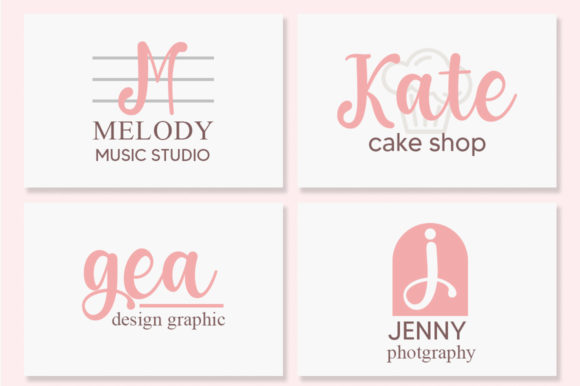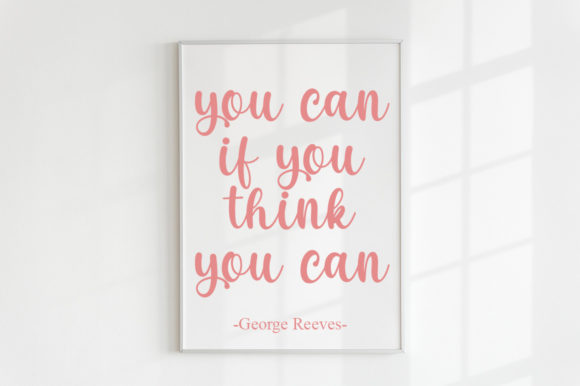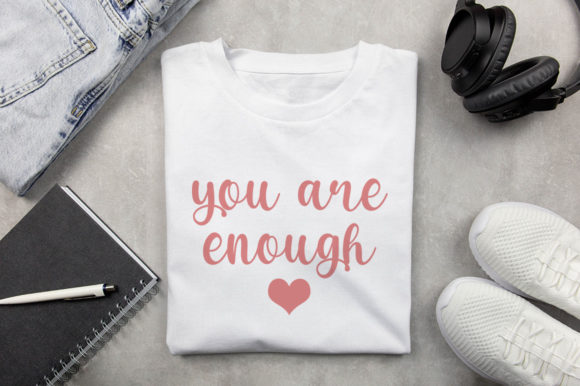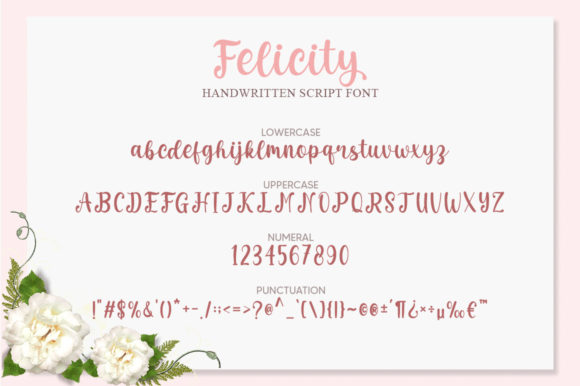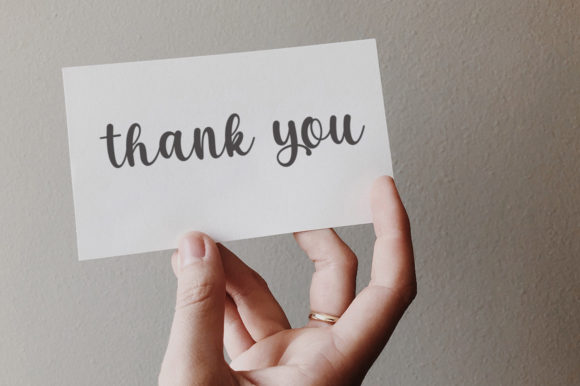
Introducing Felicity Font: Add a Touch of Magic to Your Designs
Are you looking for a font that can add a dash of personality and whimsy to your designs? Look no further than Felicity Font, a magical handwritten font that is sure to captivate your audience. With its ravishing charm, Felicity Font is perfect for a wide range of design projects, from invitations and thank you cards to quotes, greeting cards, logos, business cards, and more.
The Characteristics of Felicity Font
Felicity Font is a unique and elegant handwritten font that boasts a range of characteristics that make it stand out from the crowd. Its flowing lines, delicate curves, and subtle imperfections give it a distinctly human touch that is sure to resonate with designers and crafters alike. Whether you’re looking to create a sophisticated and elegant design or a more playful and whimsical one, Felicity Font is the perfect choice.
Uses for Felicity Font
Felicity Font is an incredibly versatile font that can be used for a wide range of design projects. Here are just a few ideas to get you started:
- Invitations: Whether you’re planning a wedding, birthday party, or other special occasion, Felicity Font is the perfect choice for your invitations. Its elegant and sophisticated charm is sure to set the tone for a memorable event.
- Thank You Cards: Show your appreciation with a beautifully designed thank you card featuring Felicity Font. Its heartfelt and sincere charm is sure to make your recipients feel special.
- Quotes: Add a touch of magic to your quotes with Felicity Font. Its whimsical and playful charm is sure to make your quotes stand out from the crowd.
- Greeting Cards: Whether you’re sending a birthday, Christmas, or get well card, Felicity Font is the perfect choice. Its warm and friendly charm is sure to make your recipients feel loved and appreciated.
- Logos: Create a unique and memorable logo for your business with Felicity Font. Its elegant and sophisticated charm is sure to make your business stand out from the crowd.
- Business Cards: Add a touch of personality to your business cards with Felicity Font. Its professional and elegant charm is sure to make a lasting impression on your clients and customers.
Why Choose Felicity Font?
So why choose Felicity Font for your design projects? Here are just a few reasons:
- Unique and Elegant: Felicity Font is a one-of-a-kind font that boasts a unique and elegant charm. Its flowing lines and delicate curves make it perfect for designs that require a touch of sophistication.
- Versatile: Felicity Font is an incredibly versatile font that can be used for a wide range of design projects. Whether you’re creating invitations, logos, or business cards, Felicity Font is the perfect choice.
- Easy to Read: Despite its elegant and cursive nature, Felicity Font is incredibly easy to read. This makes it perfect for designs that require a clear and concise message.
- Customizable: Felicity Font can be easily customized to fit your design needs. Whether you want to change the color, size, or style, Felicity Font is the perfect choice.
Tips for Using Felicity Font
Here are a few tips for using Felicity Font in your design projects:
- Pair it with Other Fonts: Felicity Font pairs perfectly with other fonts, such as sans serif fonts or script fonts. Experiment with different font combinations to find the perfect look for your design.
- Use it for Headings: Felicity Font is perfect for headings and titles. Its elegant and sophisticated charm is sure to make your headings stand out from the crowd.
- Experiment with Colors: Felicity Font looks great in a range of colors, from bold and bright to soft and pastel. Experiment with different colors to find the perfect look for your design.
| Font Name | Felicity Font |
Felicity Font is a magical handwritten font that is sure to add a touch of personality and whimsy to your designs. With its elegant and sophisticated charm, Felicity Font is perfect for a wide range of design projects, from invitations and thank you cards to quotes, greeting cards, logos, business cards, and more. Whether you’re a designer or crafter, Felicity Font is the perfect choice for anyone looking to create beautiful and unique designs.